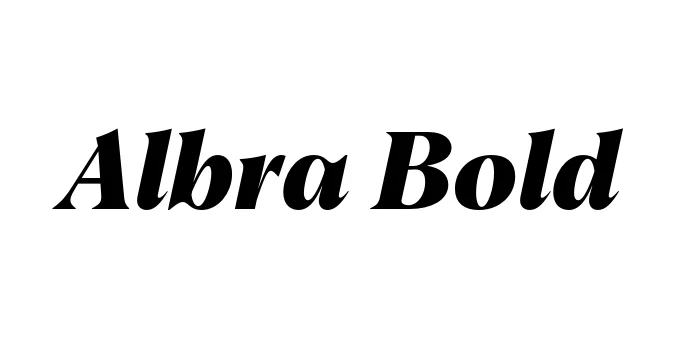
Albra Bold
Designed by Bumbum Type
Albra Bold is a sophisticated and high-contrast serif typeface that belongs to the wider Albra collection, meticulously crafted by Bumbum Type. It strikes a harmonious balance between classical elegance and contemporary flair, featuring sharp terminals and dramatic stroke variations. This weight is specifically engineered to provide a timeless aesthetic that commands attention, making it a staple for designers who require a font that bridges the gap between traditional grace and modern minimalism.
Historically, Albra has gained significant popularity within the fashion and editorial sectors because of its refined silhouette and versatile character sets. The design philosophy behind Albra Bold focuses on creating a high-impact visual experience without compromising legibility. Whether it is used for bold print advertising or high-resolution digital displays, the font maintains its integrity, offering a luxurious feel that elevates the surrounding design elements to a professional standard.
Albra Bold Best Uses
Perfect for striking headlines in magazines and high-end publications.
Ideal for creating luxury logos and sophisticated corporate stationery.
Excellent for premium product labels in the cosmetics or wine industry.
Adds a touch of class to hero sections and landing page headings.